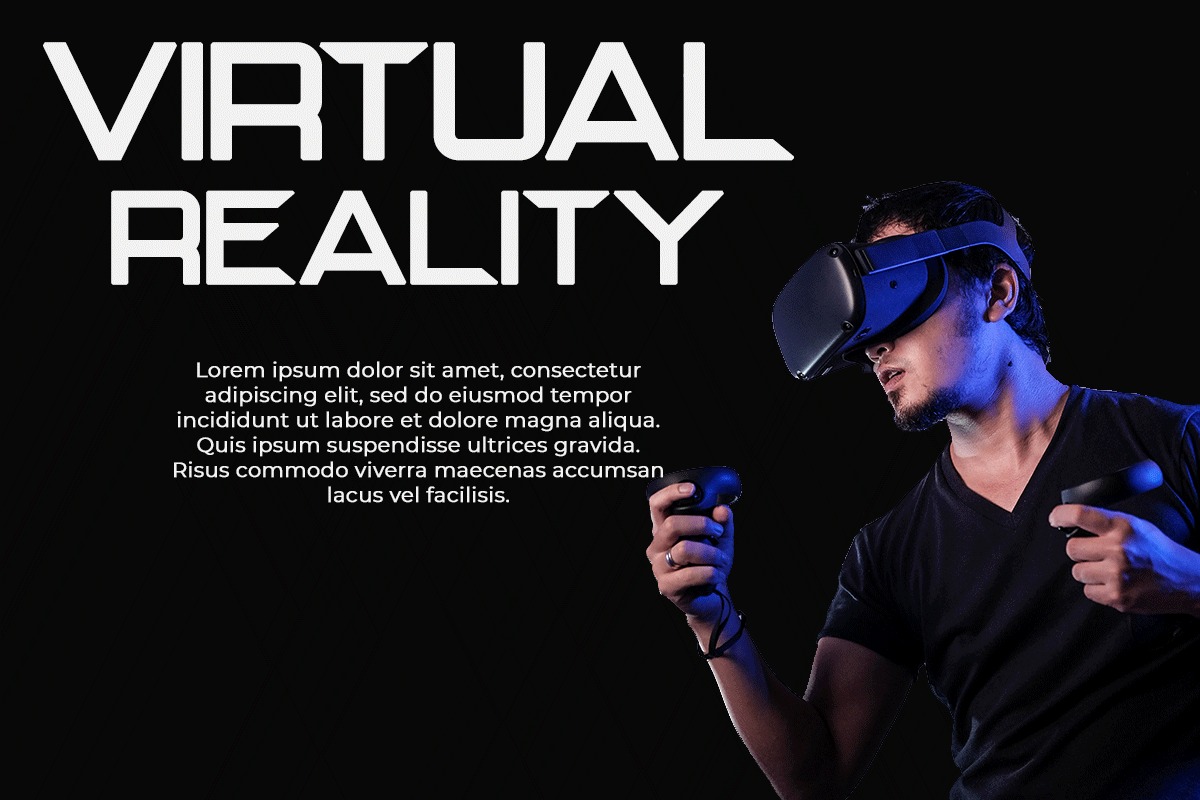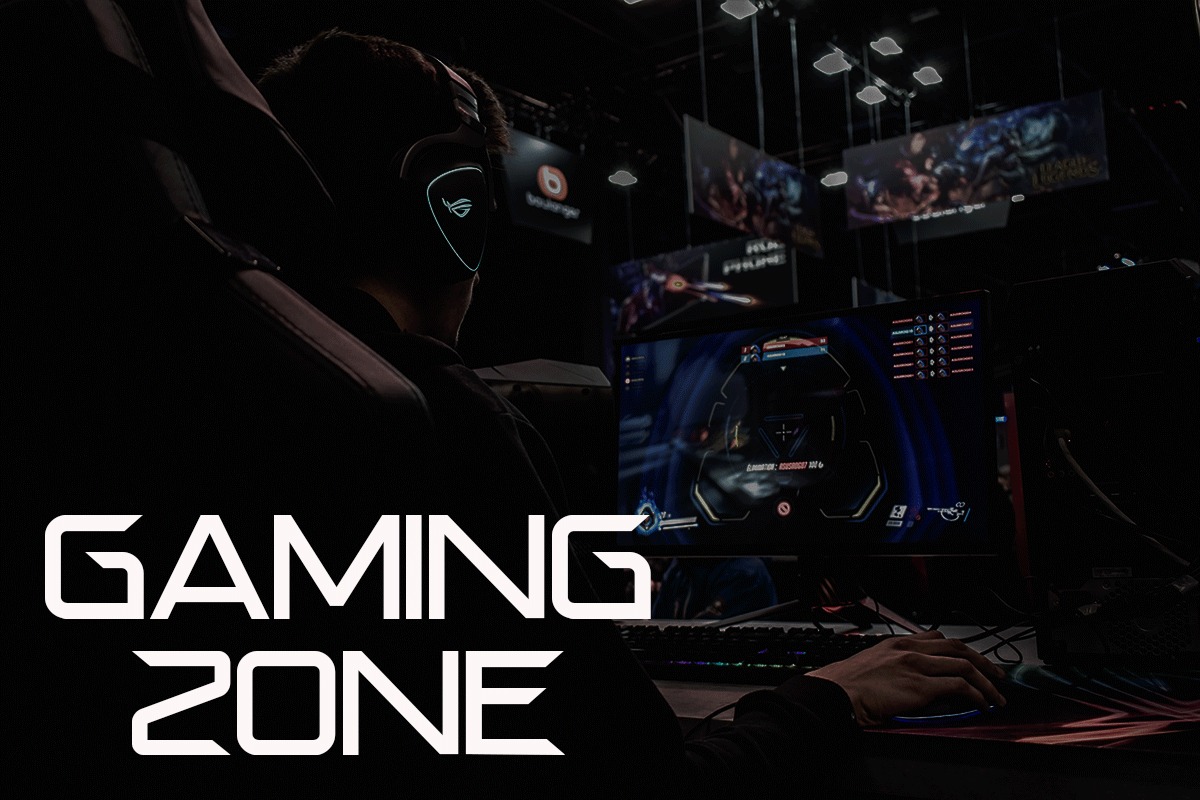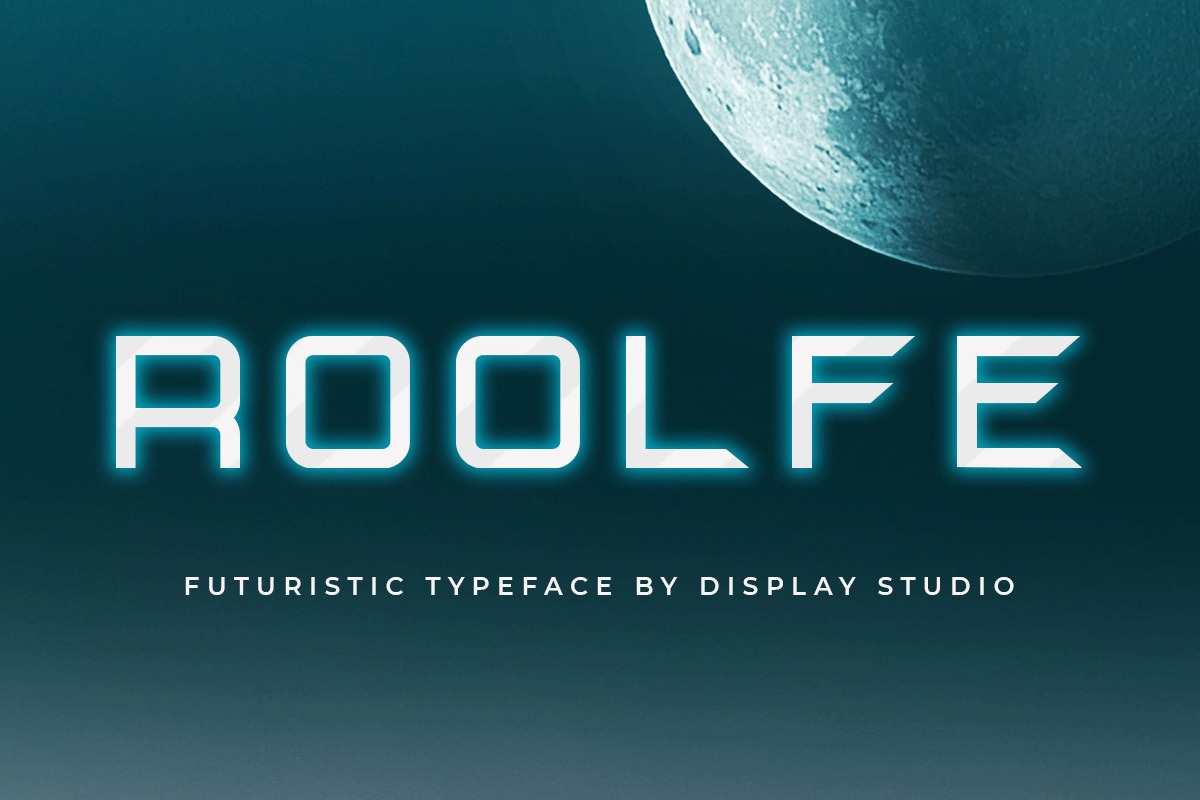
Roolfe Display Font
This is a minimalist Display fonts, Roolfe clean lines and sharp edges make it a perfect sans for logos, quotes, print, signage, and more! Plus, the different weights make it a stellar option for branding and web use looks really beautiful with condensed spacing as well.